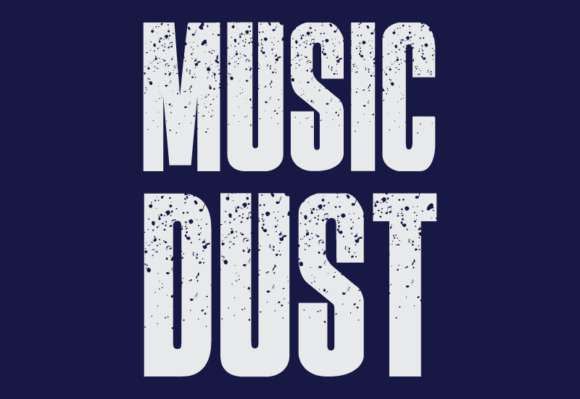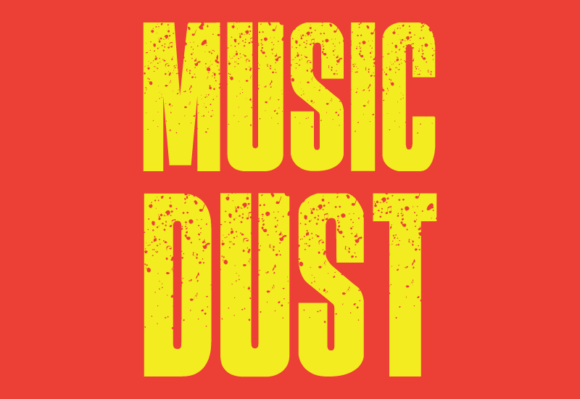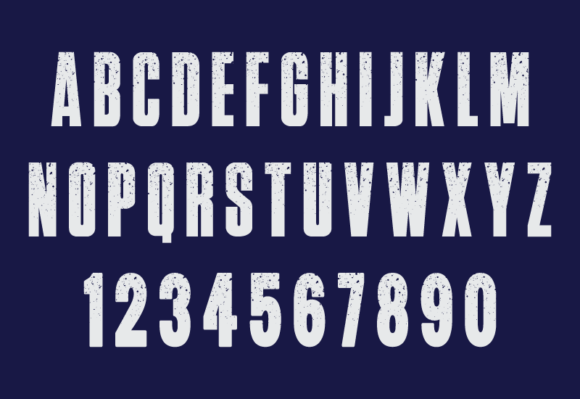
Music Dust Font: A Creative Grunge Display Font for Posters!
About the Music Dust Font
Add a touch of class to your work with the Music Dust Font, a truly exceptional typeface. Introducing Music Dust, an exquisitely honed grunge font. The epitome of minimalist elegance, this font resonates with tranquility as refined and flawless as a soothing grunge melody, every stroke shaped with unparalleled precision. This font has little music note grunge effects that enhance the beauty of your projects.
Music Dust excels in headline applications, short textual elements within logos, and branding projects requiring a touch of understated grunge aesthetic. It’s ideal for packaging design, particularly for products targeting a sophisticated, perhaps slightly rebellious, market. Avoid using it for body text or long paragraphs; its unique texture and weight aren’t suited for extended readability.
Its minimalist elegance pairs well with clean sans-serif fonts like Montserrat or Lato for a balanced contrast. For a more dramatic effect, consider a strong geometric sans-serif such as Futura or a classic serif like Garamond. A script font with a similar level of refinement could also work, depending on the desired mood.
Music Dust possesses a refined yet edgy personality; it’s simultaneously elegant and slightly rebellious, making it suitable for brands conveying a sense of sophisticated coolness or artistic authenticity.
Music Dust Font Usage Examples
Music Dust Font Example